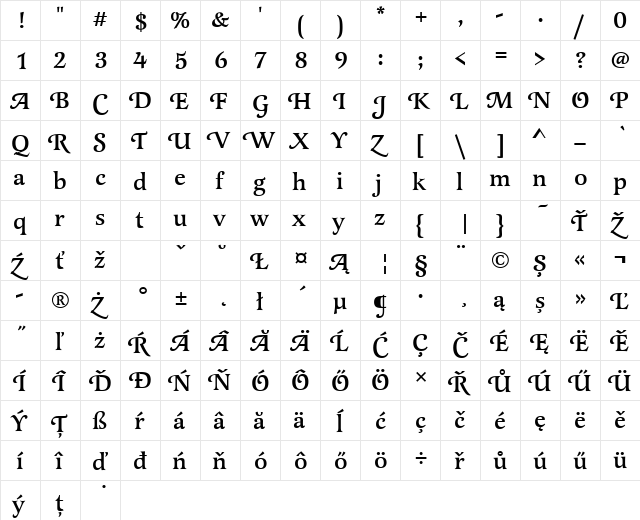
LatienneSwaTEEMed Regular
Design Context for LatienneSwaTEEMed Typeface
LatienneSwaTEEMed offers clean, dependable letterforms without strong stylistic allegiance, making it a practical choice for designers who need flexibility.